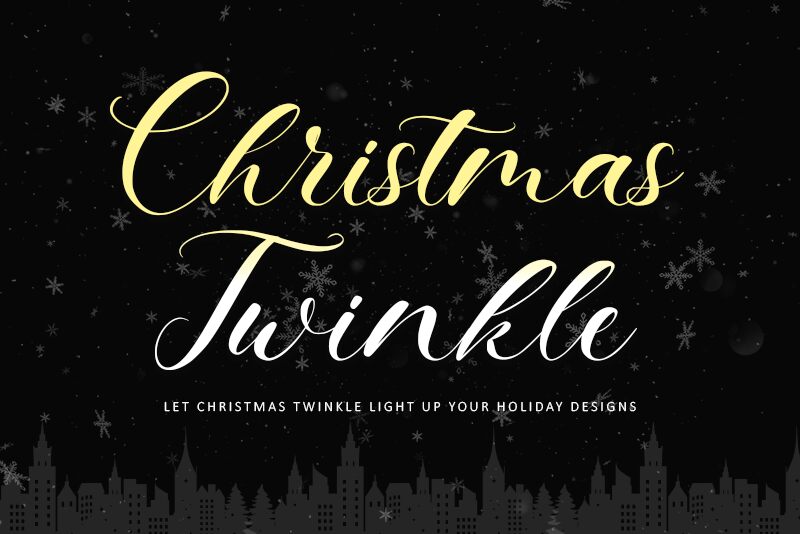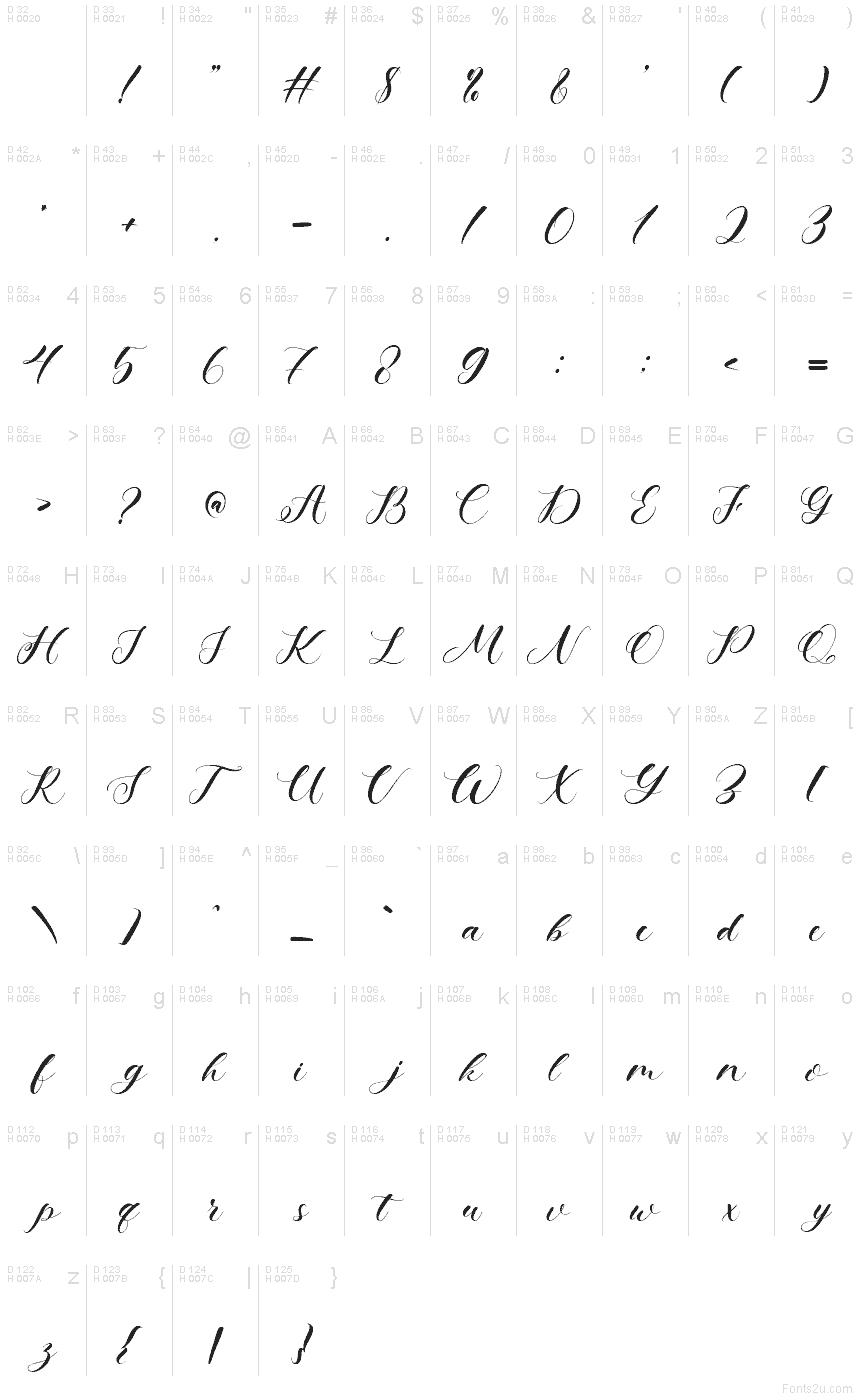
Christmas Twinkle font by Letterara is a free calligraphy typeface that captures the shimmer of handwritten holiday cards. Its flowing script, long elegant strokes, and soft curves feel like ink brushed across thick, snowy paper, giving every word a warm, seasonal glow. The letters connect with an easy rhythm that reads festive without feeling cheesy, making it just as suited to cozy winter messages as to more formal celebrations.
Using Christmas Twinkle, your holiday invitations, greeting cards, gift tags, brand marks, social media graphics, and seasonal packaging instantly gain that “carefully written by hand” charm. This free font shines at larger sizes where its swashes can really breathe; pair it with a clean sans serif for body text to keep layouts readable and refined.